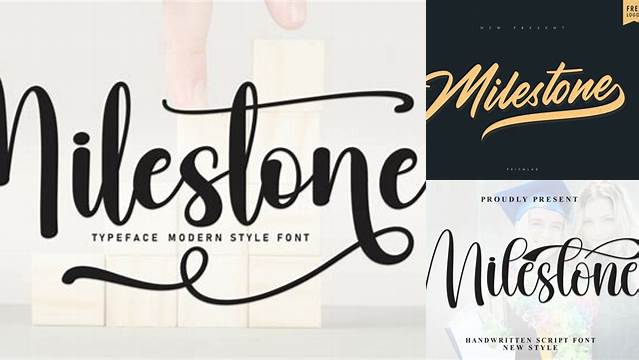
Hey everyone! 👋 Today, we're diving headfirst into the awesome world of fonts, specifically the Milestone Script Font. This font is super popular, and guess what? You can often find a free version script font free download! That's right, you can snag this stylish font without spending a dime. How cool is that? This article will be your ultimate guide to finding, downloading, and using the Milestone Script Font. We'll cover everything from where to find it, how to install it, and even some ideas on how to use it creatively. Get ready to give your designs a serious upgrade – all for free! 😉
Milestone Script Font: Your Gateway to Stylish Typography
Alright, let's talk about why the Milestone Script Font is such a big deal. This font is a script font, which means it's designed to look like elegant, handwritten calligraphy. It's got beautiful, flowing strokes that add a touch of sophistication and personality to any project. This makes it ideal for a variety of uses, from logos and branding to invitations, social media graphics, and even website headers. The Milestone Script Font is known for its readability and versatility. Even though it has a flowing style, it's easy to read, so your message won't get lost. Plus, it works well in both digital and print formats. You can use it for anything that needs a touch of flair. Finding a free version script font free download is like striking gold for designers on a budget. You get a high-quality font without the high price tag. Many websites offer this font for free, making it accessible to everyone. The free version script font free download is often a simplified version, meaning it might have fewer characters or features than the paid version. However, it's still a fantastic way to try out the font and see how it works for your project. You can always upgrade to the premium version later if you need more features. So, whether you're a seasoned designer or just starting out, the Milestone Script Font is a great addition to your font library. Its beautiful design and versatility make it a go-to choice for a wide range of projects. Getting a free version script font free download is a win-win. You elevate your designs without breaking the bank! 💪
Key Features of the Milestone Script Font
Before we jump into the download details, let's quickly highlight the key features that make the Milestone Script Font so special. First, the most obvious is its elegant, hand-lettered style. This adds a personalized touch and creates a visual appeal that captures attention. The flowing curves and connected letterforms give it a natural, graceful look. Secondly, the Milestone Script Font is known for its excellent readability, even at smaller sizes. This is super important, because you want people to be able to actually read what you're writing! 😉 Lastly, its versatility makes it suitable for various applications. You can use it for logos, branding, invitations, social media posts, and other projects. Now, the free version script font free download might not include all the features of the paid version (like ligatures or alternate characters), but it will certainly give you a good sense of what this font is all about. If you're looking for a font that will make your designs stand out, the Milestone Script Font is definitely worth checking out. It's beautiful, versatile, and often available for free – what's not to love? So, keep reading to find out where you can snag your very own free version script font free download! We've got all the details coming up.